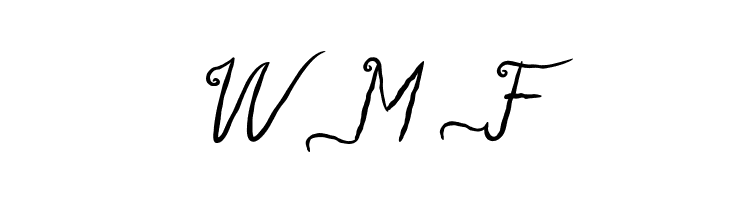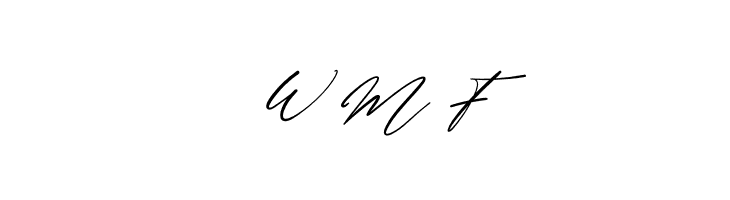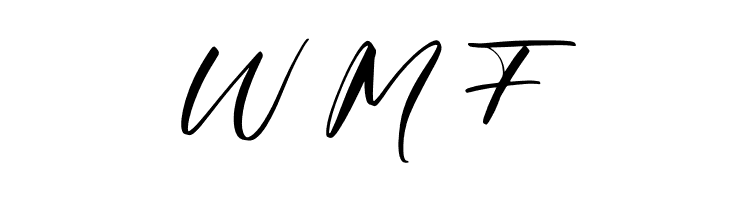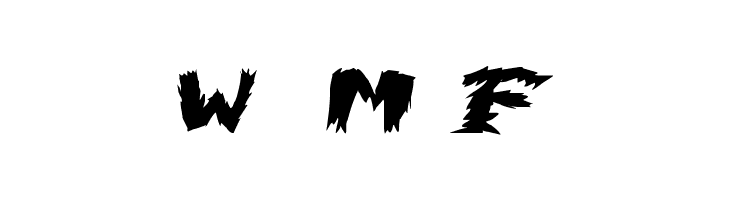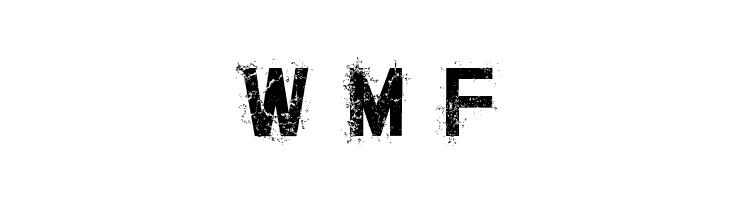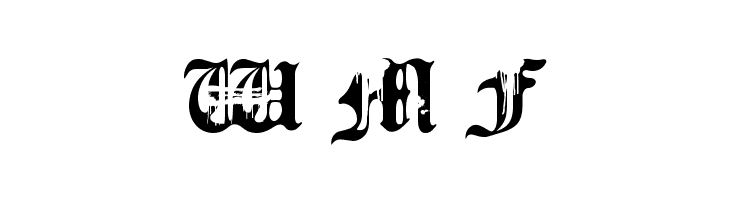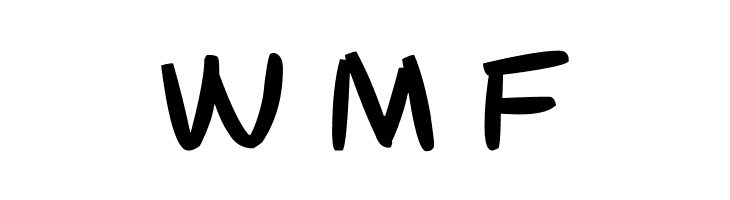
• Grottery
A dynamic and expressive handwritten cursive font with elegant flourishes.
• Grumpy Cat
A bold, jagged font with a dynamic, aggressive style.
• Grumpy Cat
A bold, edgy font with sharp, jagged edges resembling claw marks.
• Grungy
A bold, grungy font with a distressed texture, ideal for edgy designs.
• Grungy
A bold, distressed font with a grungy, textured appearance.
• gsmfont
A playful, handwritten-style font with bold, slightly tilted characters.
• Guadalupe Italic
A sophisticated, cursive script font with a flowing, elegant style.
• Guapala
A decorative script font with elegant swirls and artistic flair.
• Guerra_Santa
A bold, distressed gothic-style font with intricate details and a vintage feel.
• Guerra_Santa
A bold, decorative font with a Gothic, distressed style.